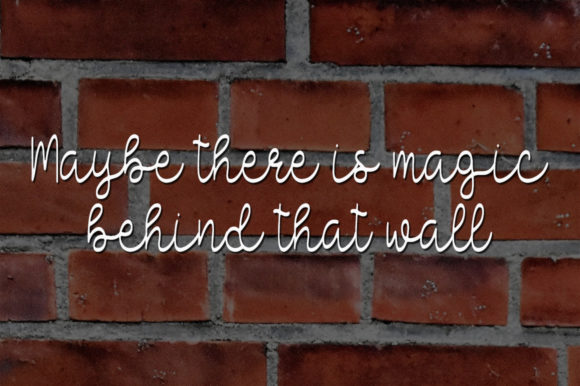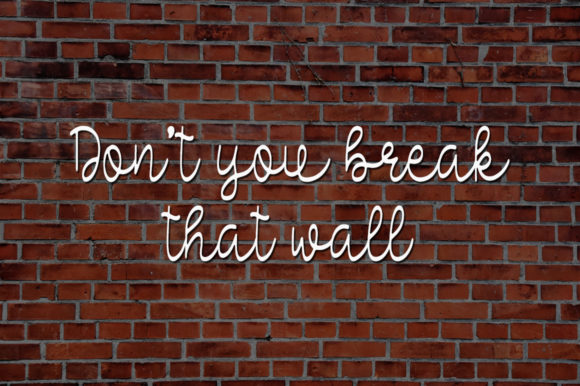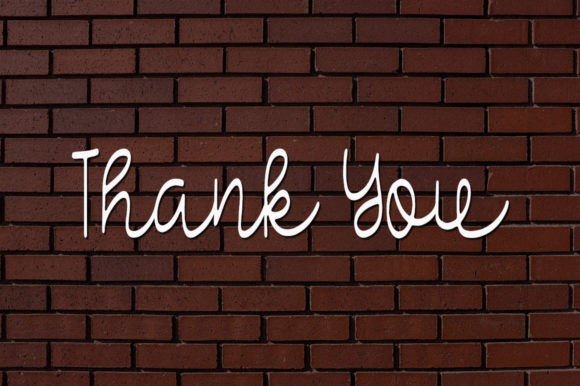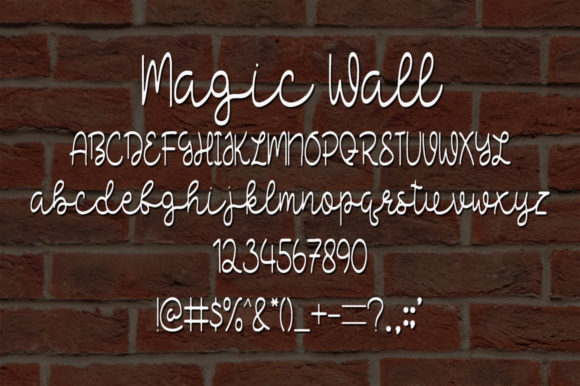
Introduction to Magic Wall Font
As a designer, there’s nothing quite like the thrill of stumbling upon a new font that sparks your creativity. It’s the perfect moment when everything falls into place, and your vision starts to take shape. For me, that moment came when I discovered the Magic Wall Font – a sweet and delicate handwritten font that instantly adds a touch of whimsy to any design.
With its dainty and joyful feel, Magic Wall Font is a design resource that’s perfect for creating romantic and personalized projects. Whether you’re crafting wedding invitations, cards, or any other design that needs a special touch, this font is sure to deliver. And the best part? It’s available for free download, making it an accessible high-quality design resource for creatives of all levels.
Whether you’re working on a creative project that requires a unique and eye-catching font or simply looking to elevate your design game, Magic Wall Font is an invaluable asset to have in your toolkit. With its transparent background and elegant design, it’s the perfect addition to any design project – and with this article, we’ll explore its full potential and show you how to make the most of this amazing font.
Key Features of Magic Wall Font
- High-quality, unique font design ideal for creative projects and design resources.
- Features a transparent background, making it easy to overlay on images or videos.
- Designed with a magical, whimsical feel, perfect for fantasy-themed projects or advertisements.
- Includes multiple font styles, including bold, italic, and regular, to add variety to your design.
Honest Review: Magic Wall Font
As a designer, I’m always on the lookout for high-quality design resources to elevate my creative projects. The Magic Wall Font caught my eye, and I decided to give it a try.
- High-quality design**: The Magic Wall Font is indeed a high-quality font that stands out from the rest.
- Transparent background**: This feature allows for easy editing and customization, making it perfect for graphic designers and digital artists.
- Limited character set**: The font only includes a limited character set, which may not be suitable for complex designs or projects that require a wide range of characters.
- Not ideal for small text**: The font may not be the best choice for small text sizes, as it can become pixelated and difficult to read.
Overall, the Magic Wall Font is a solid addition to any designer’s toolkit. While it has its limitations, its high-quality design and transparent background make it a valuable resource for creative projects.